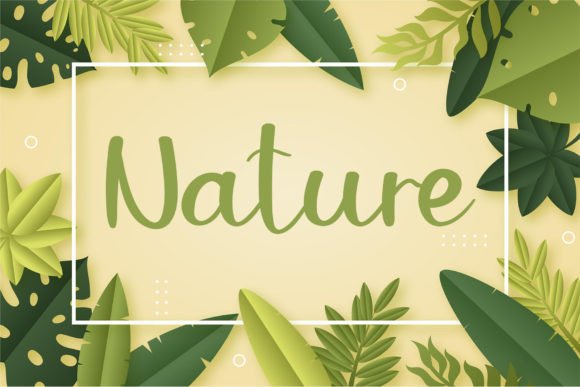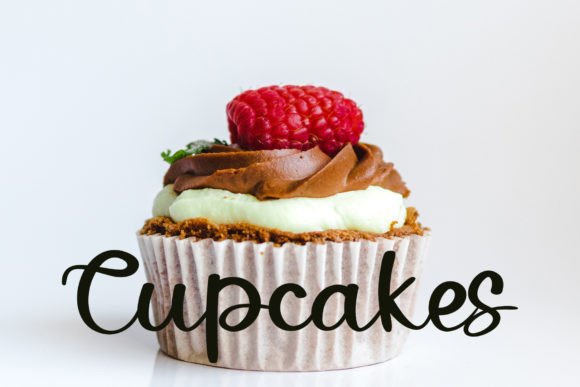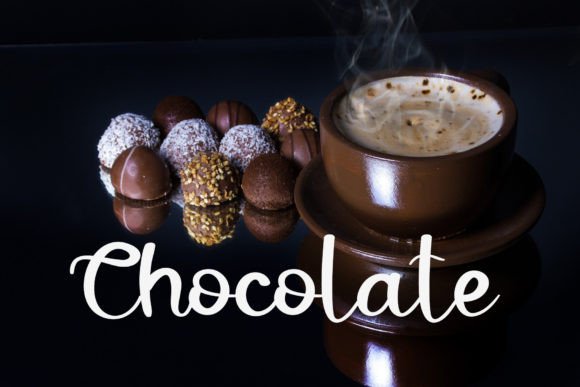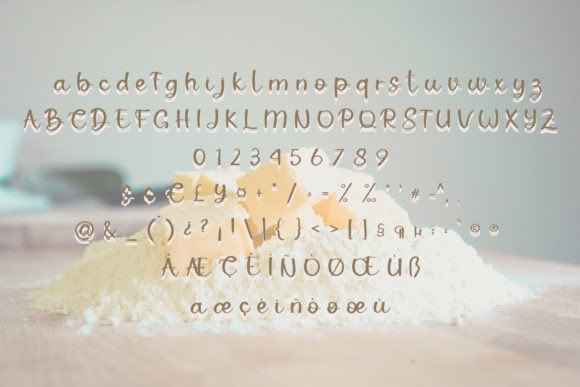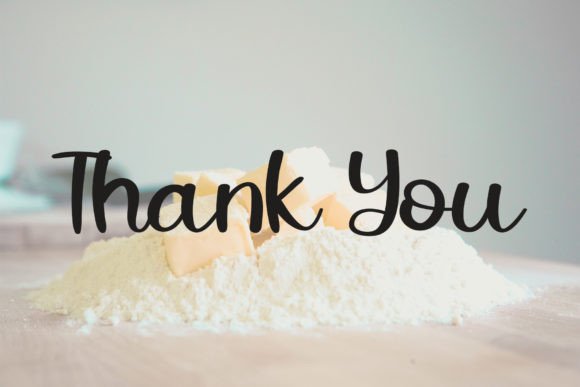
Introducing Butter Font: The Perfect Addition to Your Design Arsenal
Are you tired of using the same old fonts in your designs? Look no further than Butter Font, a delicate handwritten font that’s sure to add a touch of elegance and uniqueness to your projects. In this article, we’ll dive into the world of Butter Font, exploring its features, uses, and benefits for designers and crafters alike.
What is Butter Font?
Butter Font is a carefully crafted handwritten font designed to bring a cool and unique touch to your designs. With its smooth, flowing lines and delicate lettering, this font is perfect for adding a personal touch to a wide range of projects. Whether you’re designing invitations, writing letters, or creating titles for food products, Butter Font is the perfect choice.
Features of Butter Font
So, what makes Butter Font so special? Here are just a few of its standout features:
- Delicate Handwritten Style: Butter Font boasts a beautiful, handwritten style that’s perfect for adding a touch of elegance to your designs.
- Unique and Cool Design: This font’s unique design makes it stand out from the crowd, ensuring your projects will be noticed.
- Versatile: From letters and invitations to food products and titles, Butter Font can be used in a wide range of applications.
- Easy to Read: Despite its delicate nature, Butter Font is surprisingly easy to read, making it perfect for body text and headings.
Uses of Butter Font
So, how can you use Butter Font in your designs? Here are just a few ideas to get you started:
- Invitations: Add a touch of elegance to your wedding invitations, birthday party invites, or baby shower announcements.
- Food Products: Use Butter Font to create eye-catching labels for your food products, such as baked goods, chocolates, or specialty teas.
- Letter Writing: Add a personal touch to your letters and correspondence with Butter Font.
- Titles and Headings: Use Butter Font to create beautiful titles and headings for your blog posts, articles, or social media graphics.
Benefits of Using Butter Font
So, why should you choose Butter Font for your designs? Here are just a few benefits:
- Adds a Personal Touch: Butter Font’s handwritten style adds a personal touch to your designs, making them more relatable and engaging.
- Stand Out from the Crowd: This font’s unique design ensures your projects will stand out from the crowd, grabbing the attention of your audience.
- Easy to Use: Butter Font is surprisingly easy to use, even for those with limited design experience.
- Versatile: This font can be used in a wide range of applications, making it a great addition to your design arsenal.
Tips for Using Butter Font
Here are a few tips for getting the most out of Butter Font:
- Use it Sparingly: While Butter Font is beautiful, it can be overwhelming if used too much. Use it sparingly to add a touch of elegance to your designs.
- Pair it with Other Fonts: Experiment with pairing Butter Font with other fonts to create a unique and eye-catching design.
- Adjust the Size and Color: Don’t be afraid to adjust the size and color of Butter Font to suit your design needs.
In conclusion, Butter Font is a beautiful and versatile handwritten font that’s perfect for adding a touch of elegance and uniqueness to your designs. With its delicate style, unique design, and ease of use, this font is sure to become a staple in your design arsenal. Whether you’re a designer, crafter, or simply someone looking to add a personal touch to your projects, Butter Font is a must-have.